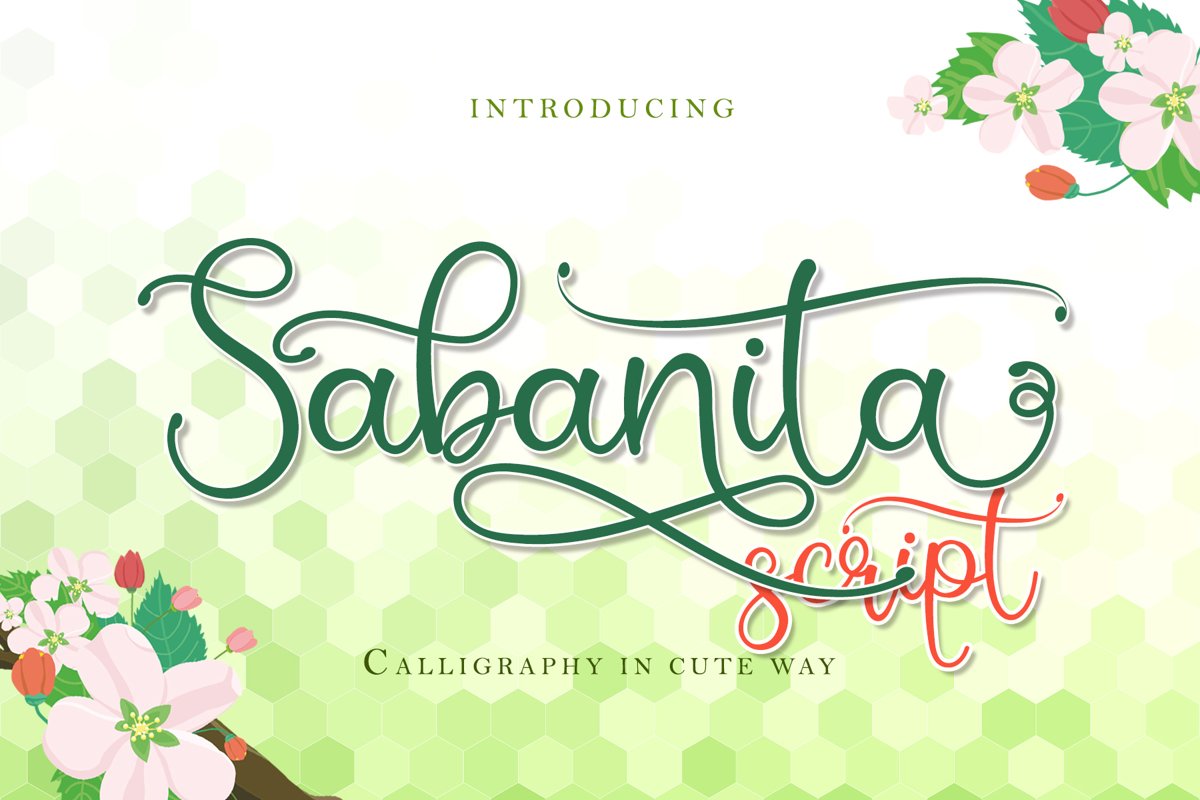
Sabanita is cute elegant calligraphy font. It has many swashes that will make you design incredibly stunning.
+Lots of Glyphs
+PUA-Encoded for many alternates and ligatures
+Multilingual glyphs.